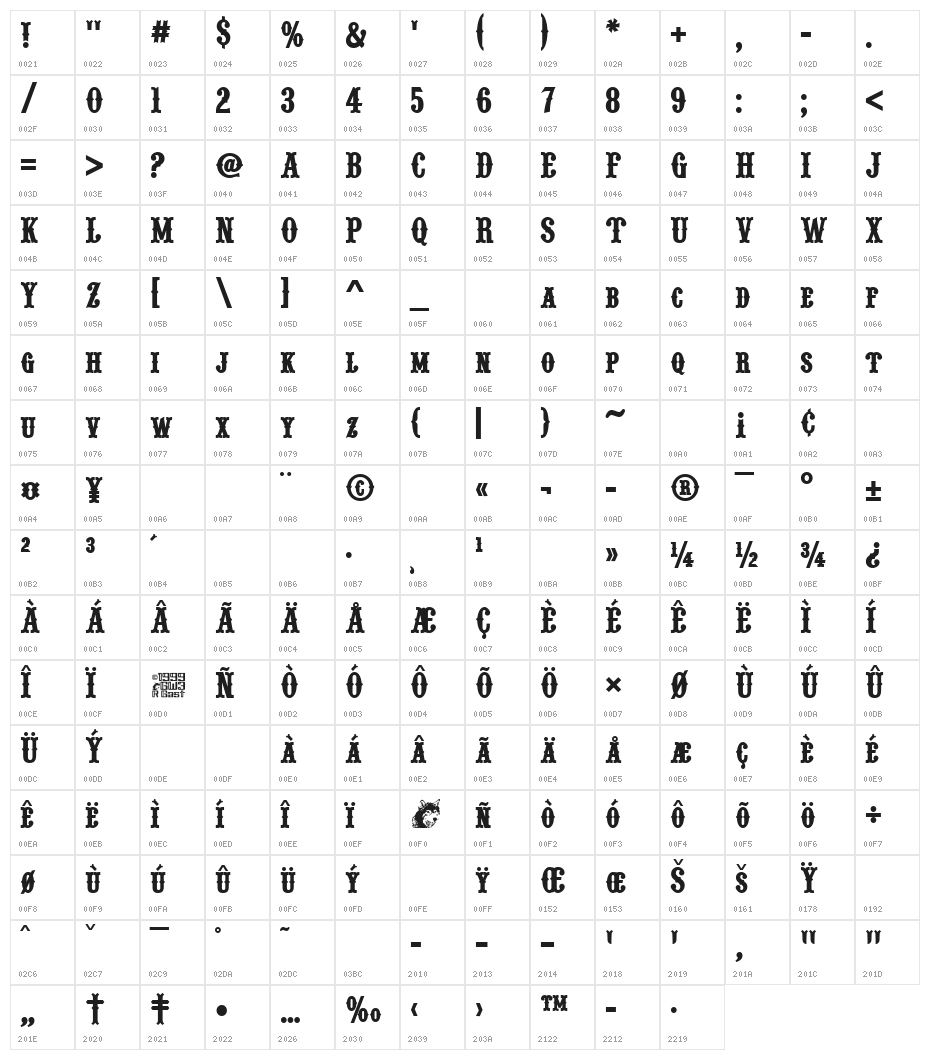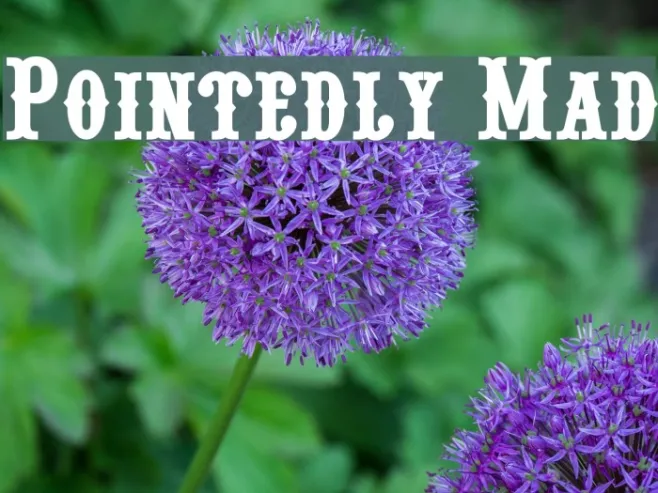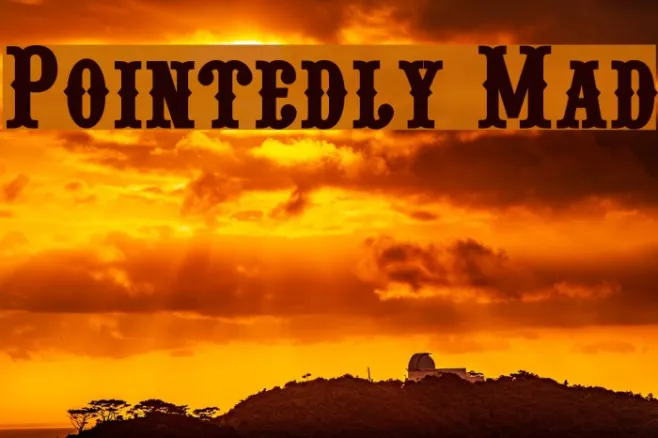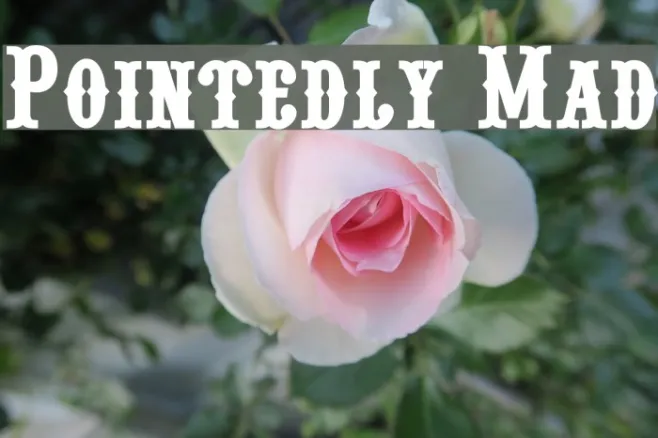
Pointedly Mad Font
Pointedly Mad Description
This font features a bold and dramatic style with thick, heavy strokes and pronounced serifs. The characters are designed with a strong presence, making them ideal for attention-grabbing headlines or titles. The uppercase and lowercase letters maintain a consistent weight, contributing to a cohesive and impactful appearance. The numerals and special characters are equally bold, ensuring uniformity across all text elements. The font's design is reminiscent of vintage or western styles, characterized by its robust and sturdy look.
| Proposed Projects | Ideal for posters, branding, logos, and any design requiring a vintage or western aesthetic. |